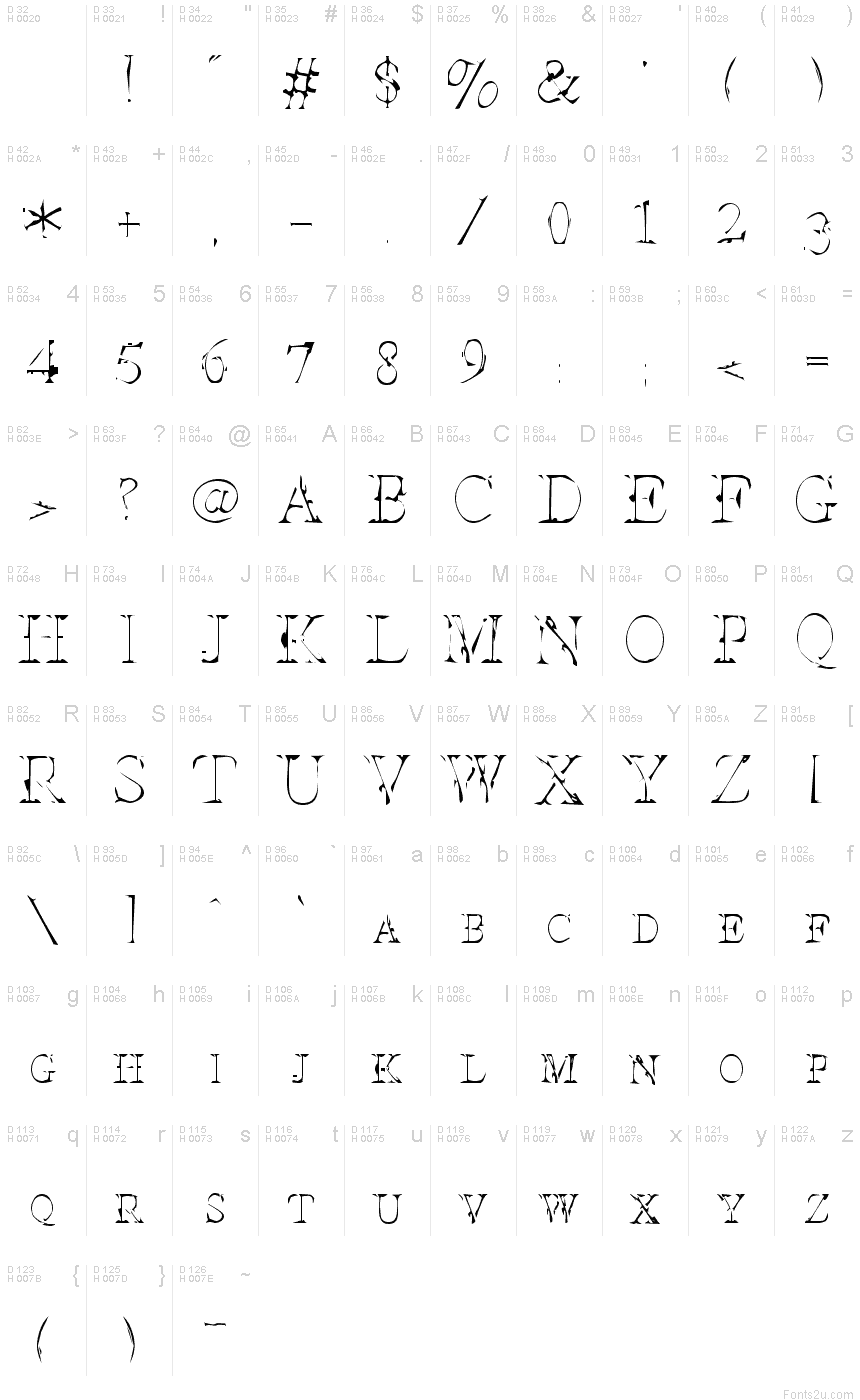
Interim SmallCaps
Interim SmallCaps font by is a free eroded gothic serif typeface. Each letter looks scratched and weather-beaten, with sharp spurs and chipped edges that feel like they’ve been dragged across stone. The tight spacing and small caps construction give titles a compressed, intense presence, so a few words hit like a shout instead of a whisper.
This free font shines on horror posters, dark fantasy book covers, metal band logos, escape room branding, haunted house flyers, and eerie game titles. Using Interim SmallCaps, you can push atmospheres that feel cursed, ancient, or slightly unhinged without needing extra textures. Pair it with a clean, neutral sans serif for body copy and let Interim carry the headline drama at large sizes where its cracks and splinters really show.